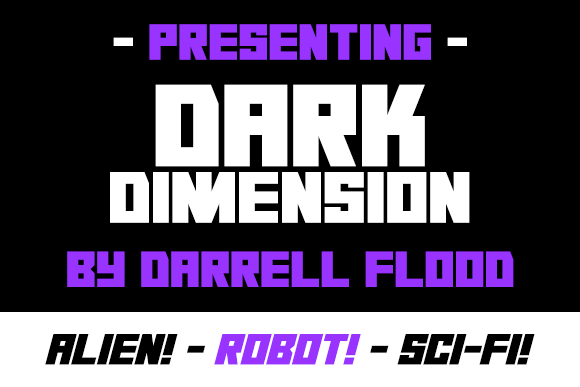
Unleash the Futuristic Vibes with Dark Dimension Font
In the realm of typography, fonts play a crucial role in setting the tone and aesthetic of a design. For those who dabble in sci-fi themes, a font that screams futurism and modernity is essential. This is where the Dark Dimension Font comes into play – a modern, angular typeface that embodies the essence of a futuristic style.
What is Dark Dimension Font?
The Dark Dimension Font is a contemporary, sans-serif typeface designed to evoke a sense of futurism and sophistication. Its angular lines and geometric shapes give it a distinctive look that’s perfect for sci-fi themed designs, technology-related projects, and even futuristic branding. This font is not just a simple collection of characters; it’s an experience that transports your audience to a world beyond the ordinary.
Key Features of Dark Dimension Font
- Modern and Angular Design: The Dark Dimension Font boasts a sleek, modern design with sharp, angular lines that give it a cutting-edge look.
- Futuristic Style: Its geometric shapes and clean lines are reminiscent of futuristic themes, making it an ideal choice for sci-fi projects.
- Versatility: This font can be used across various platforms, from digital media to print, for projects that require a touch of futurism.
- Easy to Read: Despite its futuristic design, the Dark Dimension Font remains highly legible, making it suitable for both headings and body text.
Use Cases for Dark Dimension Font
The versatility of the Dark Dimension Font makes it suitable for a wide range of applications. Here are some of the most compelling use cases:
- Sci-Fi Movies and Games: Create posters, trailers, and in-game text that transport your audience to another galaxy.
- Futuristic Branding: Give your brand a modern edge with a logo or wordmark that uses the Dark Dimension Font.
- Technology and Innovation: Use this font for websites, apps, or marketing materials that require a sleek, tech-savvy look.
- Graphic Novels and Comics: Add a touch of futurism to your graphic novels or comics with this distinctive font.
How to Use Dark Dimension Font Effectively
To make the most out of the Dark Dimension Font, consider the following tips:
- Pair with Complementary Fonts: Combine the Dark Dimension Font with simpler fonts for body text to create visual hierarchy.
- Experiment with Colors: While the font itself is dark and bold, playing with neon or metallic colors can enhance its futuristic appeal.
- Consider Size and Weight: Use different weights and sizes to create contrast and emphasize key information.
The Dark Dimension Font is more than just a typeface – it’s a design statement that says you’re bold, innovative, and forward-thinking. Whether you’re a designer, a craftsperson, or simply someone who appreciates the beauty of typography, this font offers endless possibilities for creative expression. So, dive into the dark dimension and discover how this modern, angular font can elevate your designs to new heights.